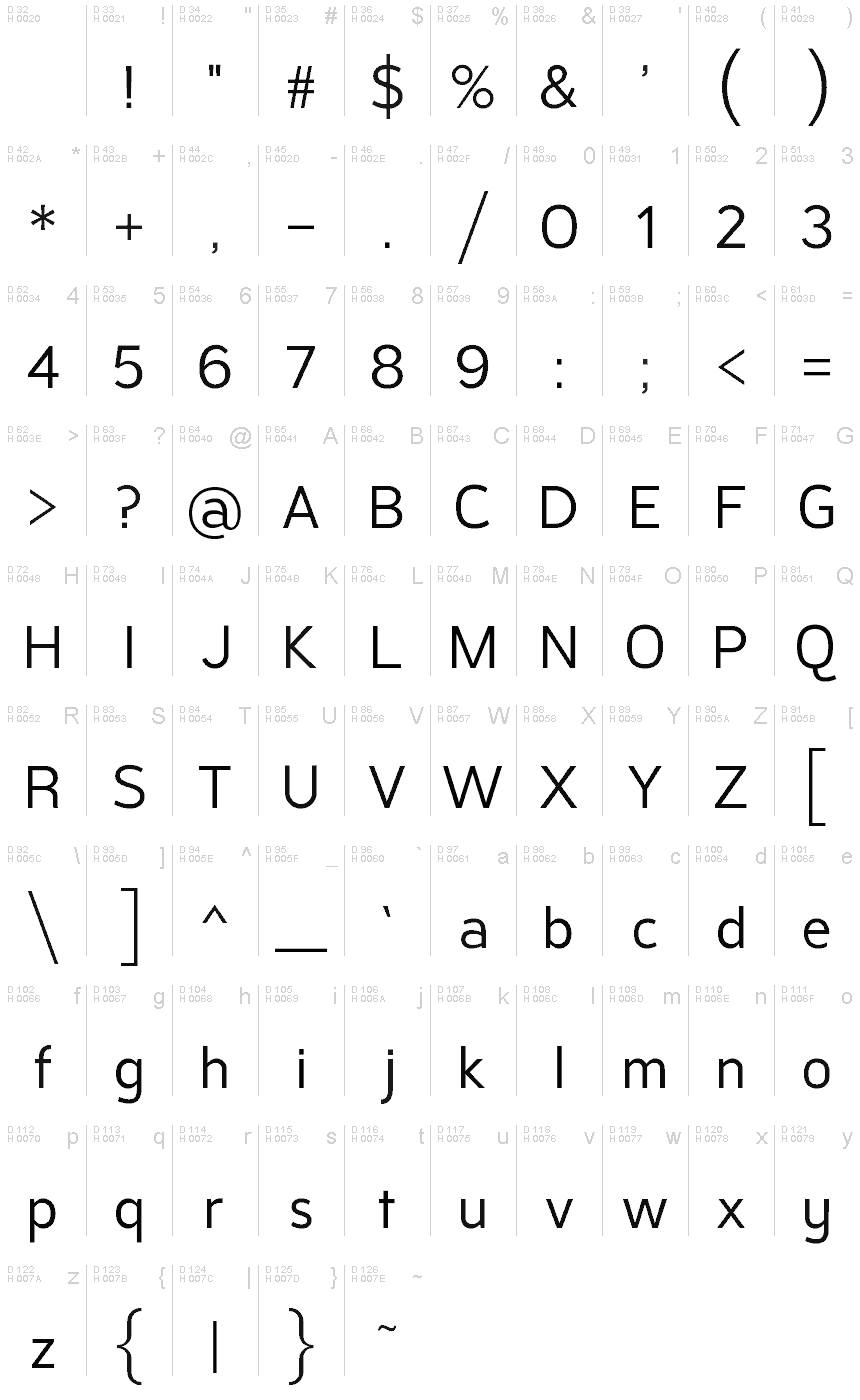
Pragma Sans
Pragma Sans is a striking sans serif font designed by Steve Gardner. Its clean, minimalist aesthetic and sharp edges lend it a sense of modernity and sophistication. The letterforms are well-balanced, with subtle curves that add a touch of warmth to the overall angular composition. Pragma Sans excels in both display and body text settings, making it a versatile choice for a range of design applications, from branding and editorial layouts to user interfaces and digital content.
Its legibility and contemporary appeal make it a compelling option for designers seeking a functional yet visually impactful typographic solution.